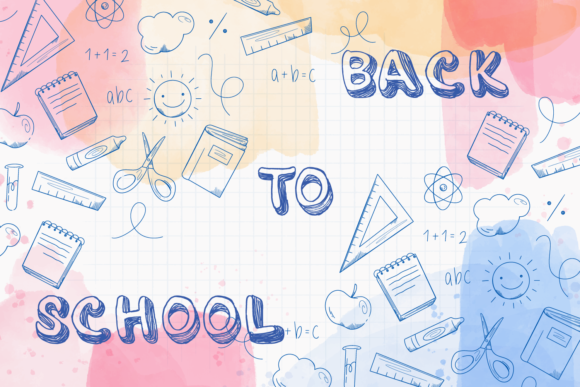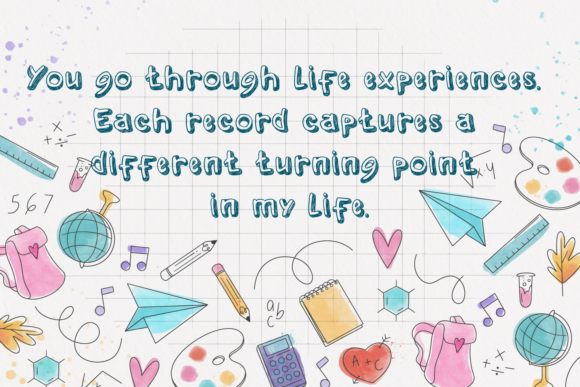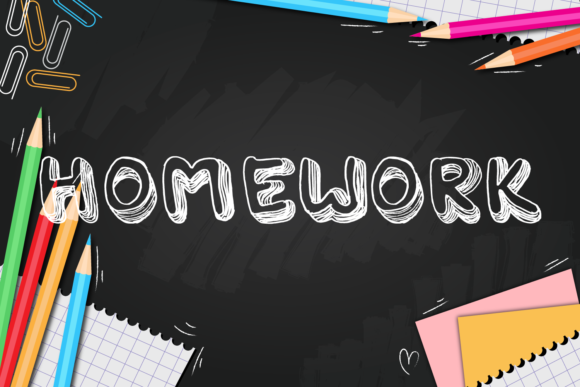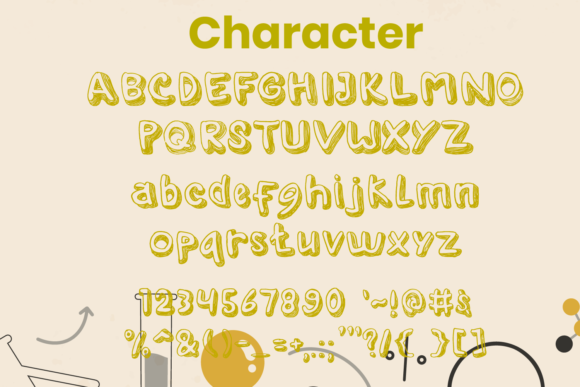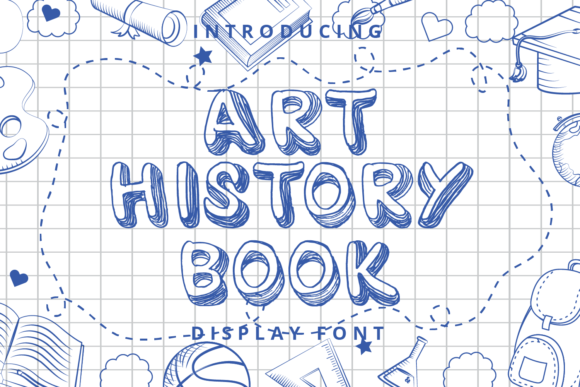
Discover the Charm of Art History Book Font: Elevate Your Designs with a Unique Touch
In the realm of typography, fonts play a pivotal role in transforming a design from ordinary to extraordinary. Among the myriad of fonts available, the Art History Book Font stands out with its distinctive outlined display style, capturing the hearts of designers and crafters alike. This article delves into the characteristics, applications, and benefits of using the Art History Book Font, providing insights into how it can elevate your designs.
The Art History Book Font: A Cool Outlined Display Font
Art History Book Font is characterized by its cool outlined display style, which lends a touch of sophistication and elegance to any design. Its unique appearance is not just visually appealing but also incredibly versatile, making it suitable for a wide range of projects. Whether you’re working on web designs, business cards, posters, or any other visual material, this font can add a distinctive flair that sets your work apart.
Cute Style for Diverse Designs
One of the standout features of the Art History Book Font is its cute style. This font’s charm lies in its ability to convey a sense of playfulness and approachability, making it an excellent choice for designs that aim to connect with a younger audience or projects that require a more casual tone. However, its outlined style also ensures that it maintains a level of professionalism, suitable for more formal applications.
Ideal for a Variety of Projects
The versatility of the Art History Book Font is one of its most significant advantages. Here are a few areas where this font can make a substantial impact:
- Web Designs: In the digital landscape, standing out is crucial. The Art History Book Font can be used for headings, titles, and even short paragraphs to draw attention and add personality to your website.
- Business Cards: Make a memorable first impression with a business card that features a unique and stylish font. The Art History Book Font can help you achieve this, adding a touch of creativity and professionalism.
- Posters and Flyers: For any promotional material, visibility and appeal are key. This font can help your posters and flyers grab attention and communicate your message effectively.
- Social Media Graphics: In the crowded social media landscape, distinctive graphics can significantly enhance your posts’ visibility and engagement. The Art History Book Font can be a valuable asset in creating such graphics.
Benefits of Using Art History Book Font
Choosing the right font for your project can have a considerable impact on its overall success. Here are some benefits of incorporating the Art History Book Font into your designs:
- Unique Aesthetic: The outlined style of the Art History Book Font offers a unique aesthetic that can differentiate your designs from others.
- Versatility: Its versatility means you can use it across various projects, from digital to print, without compromising on style or readability.
- Emotional Connection: The cute style of the font can help create an emotional connection with your audience, making your designs more relatable and engaging.
The Art History Book Font is a valuable addition to any designer’s toolkit. Its cool outlined display style, cute aesthetic, and versatility make it an ideal choice for a wide range of projects. By incorporating this font into your designs, you can elevate your work, making it more visually appealing, engaging, and memorable. Whether you’re a professional designer or a crafter, the Art History Book Font offers a unique touch that can transform your creations and help you achieve your design goals.